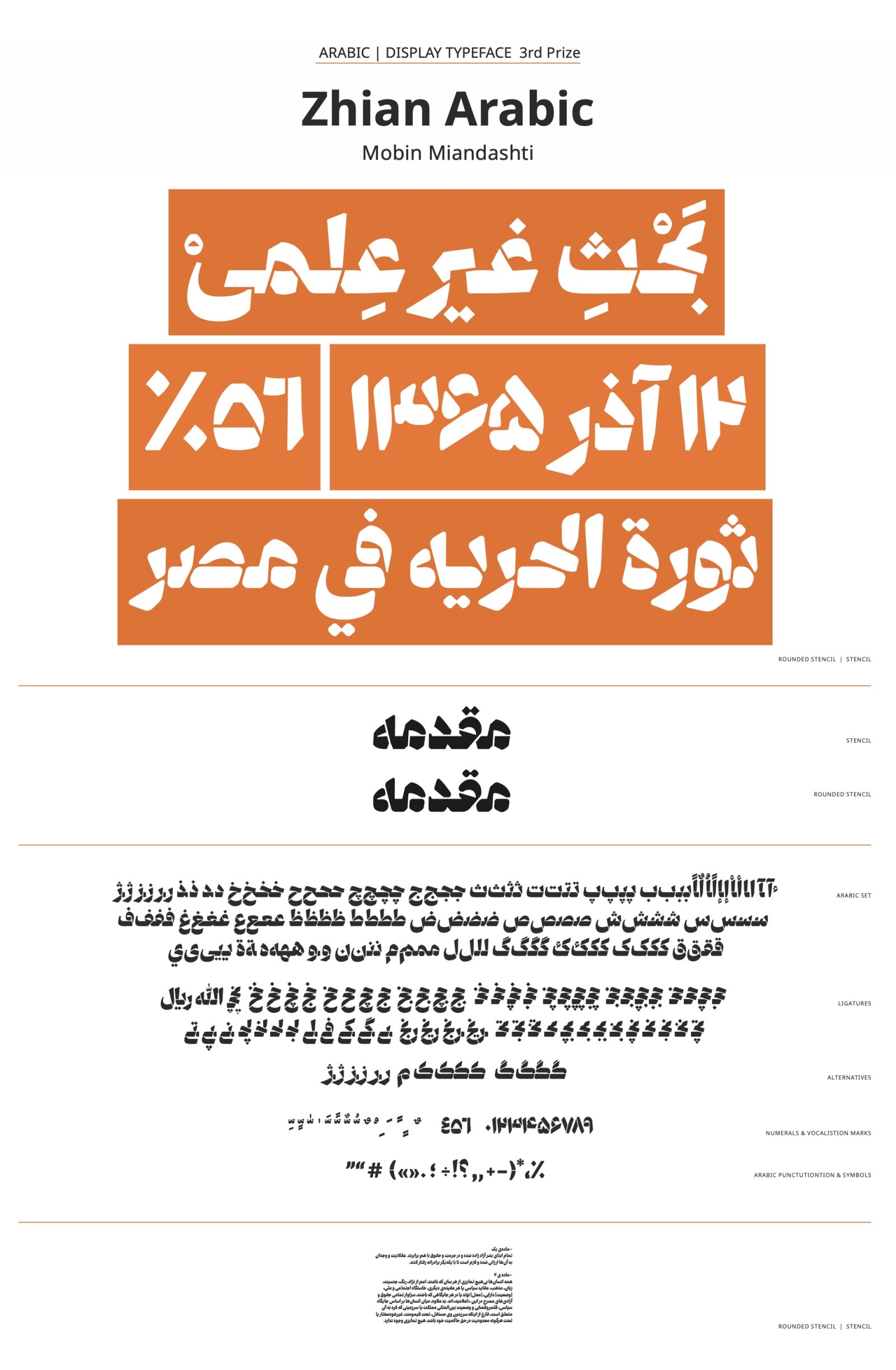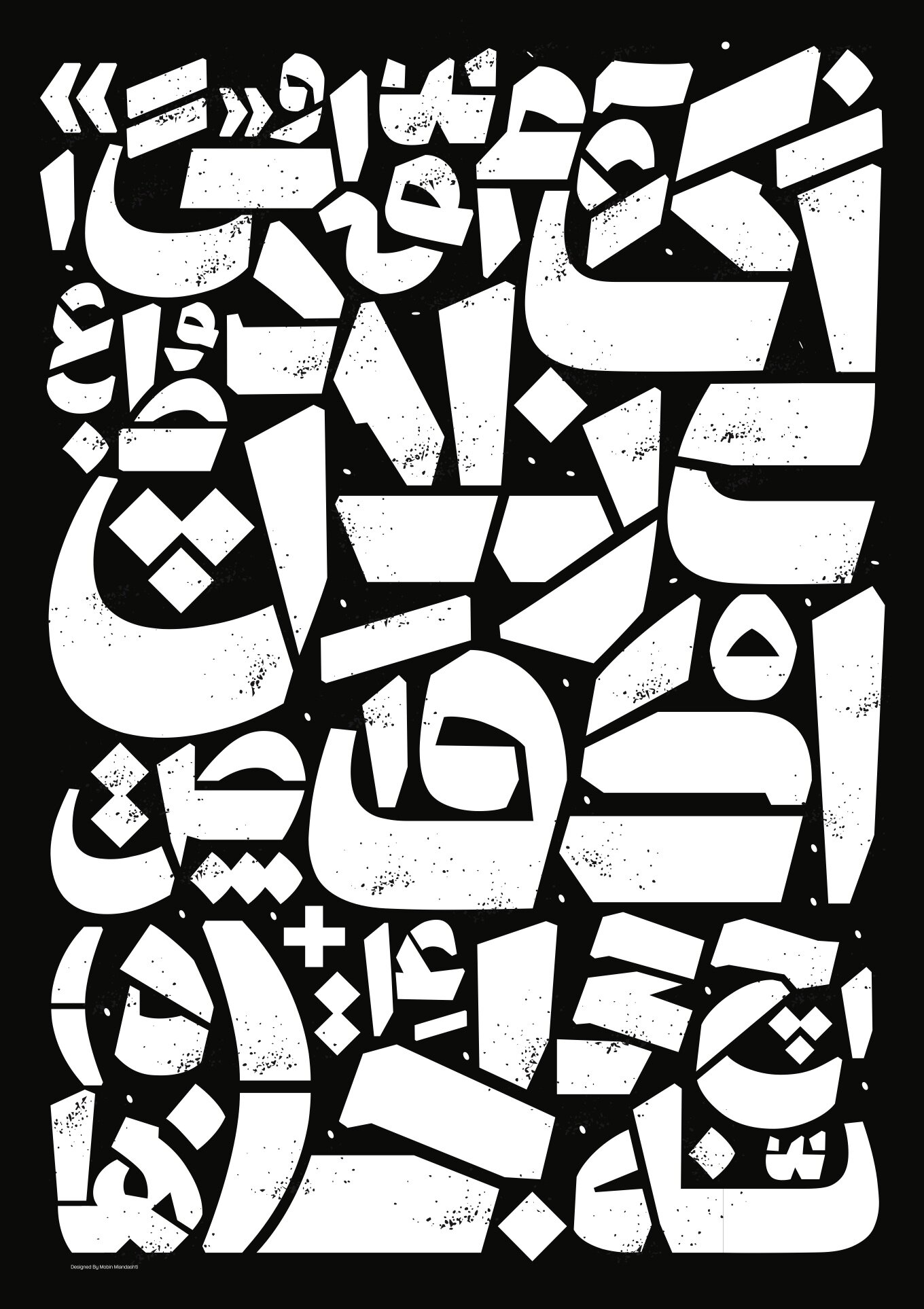
Zhian Arabic
by Mobin Keshavarzi Miandashti
Arabic derived Scripts
Zhian Arabic is not friendly. It is clear and protestant and has a loud and harsh voice. It is specifically designed to be used to demonstrate protest.